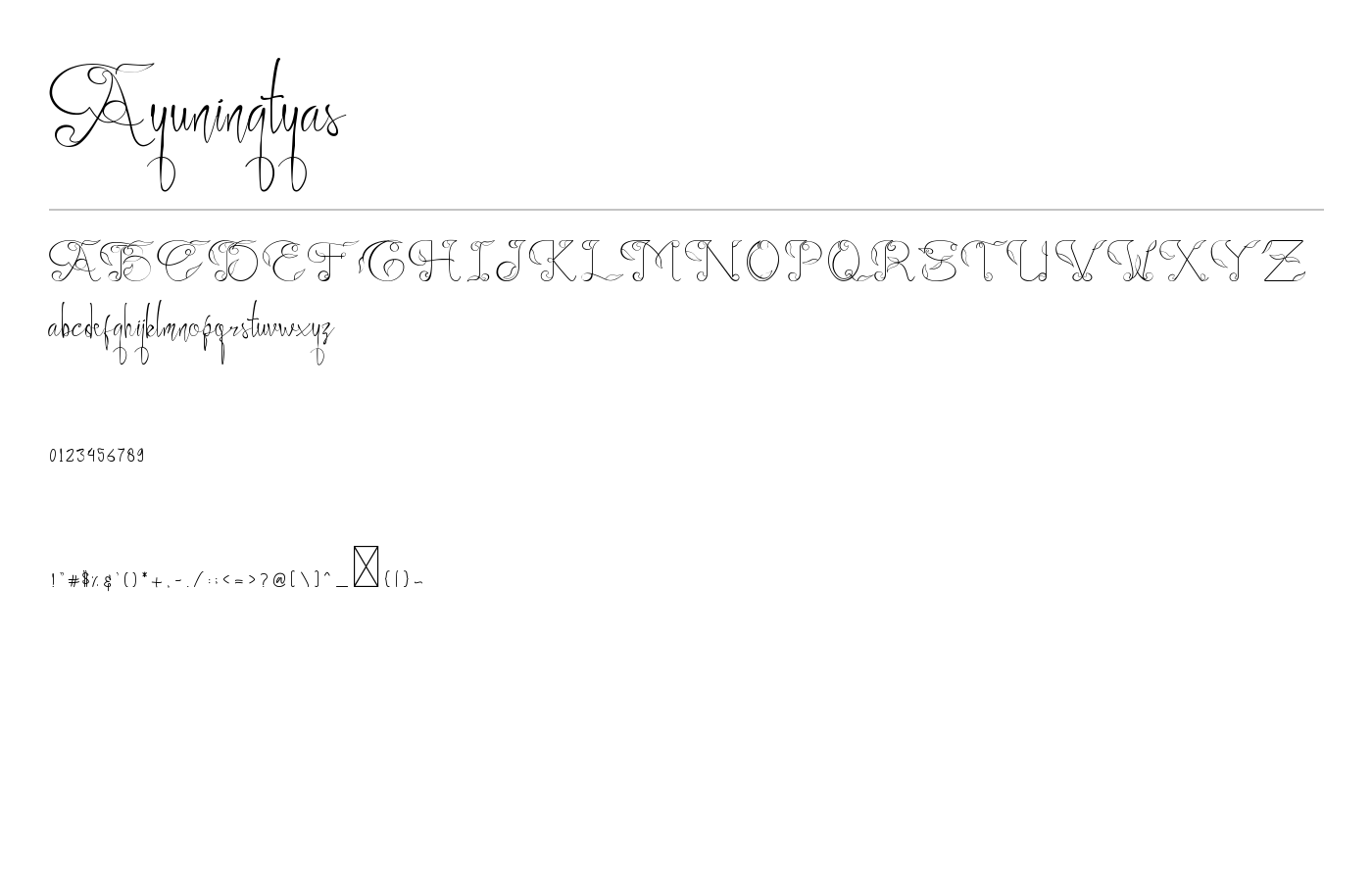
Ayuningtyas is an elegant, delicate serif font characterized by its ornamental, swirling details and thin strokes that impart a refined, artistic flair. Its high contrast and decorative style make it perfect for sophisticated invitations, luxury branding, and decorative headlines where a graceful, vintage feel is desired. This font shines best in designs that benefit from a touch of classic elegance and intricate beauty.
Ayuningtyas Font